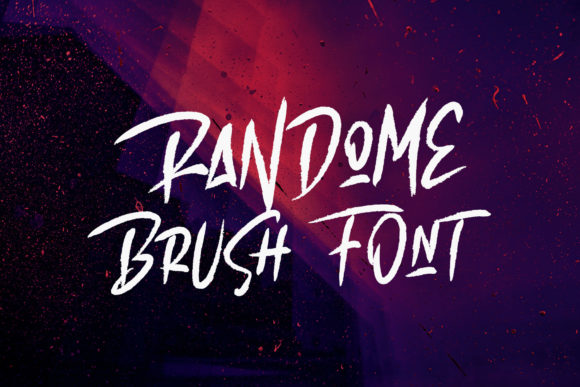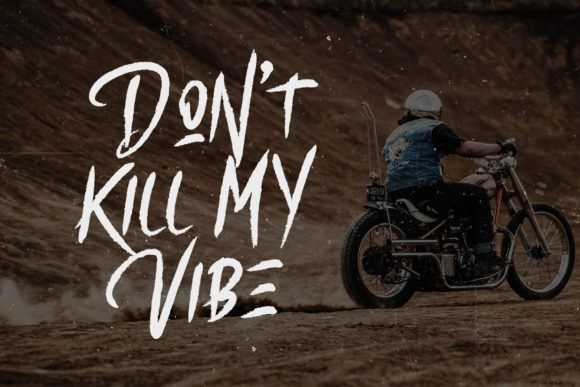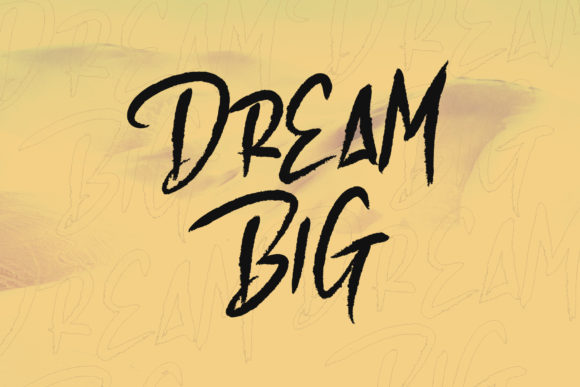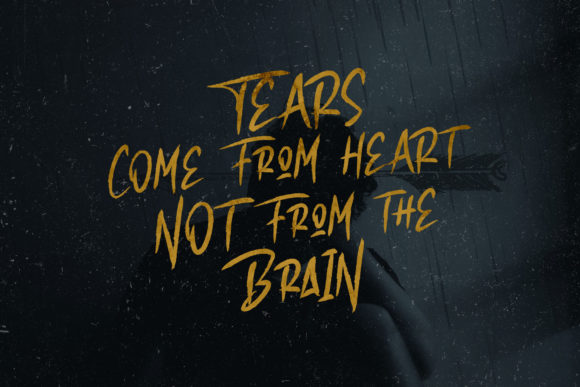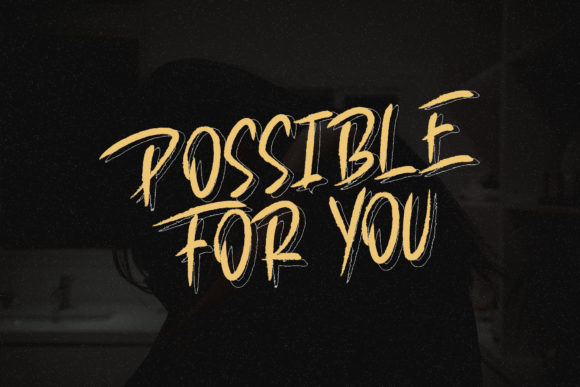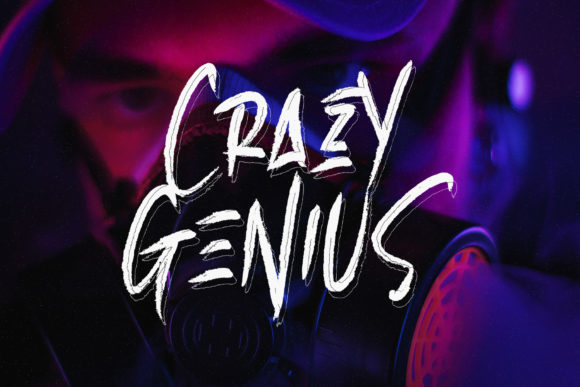
Introduction to Randome Font
Have you ever stared at a blank canvas, waiting for inspiration to strike? For designers, that moment is a familiar feeling. The blank page is a daunting challenge, but with the right tools, it can be a canvas for creativity. That’s where Randome Font comes in – a high-quality, free download that can elevate your design projects and make them truly stand out.
As a valuable design resource, Randome Font is perfect for branding, product packaging, invitations, quotes, t-shirts, labels, posters, or any logo you want to develop. With its unique brush display style, this font adds a personal touch to your designs, making them more attractive and engaging. Whether you’re working on a creative project or simply need a new font to spice up your designs, Randome Font is a must-have in your design arsenal.
Key Features of Randome Font
- High-quality design with a transparent background, perfect for use in creative projects.
- Unique, hand-drawn style that adds a personal touch to any design project.
- Perfect for use in logos, branding, and other design elements where a creative, high-quality font is required.
Honest Review: Randome Font
I recently stumbled upon Randome Font and was excited to give it a try. As a designer, I’m always on the lookout for high-quality design resources to elevate my creative projects.
- ✨ The font is incredibly versatile and can be used for a variety of projects, from logos to typography-based designs.
- ⚠️ The font selection is relatively limited, which may not be suitable for designers working on large-scale projects.
Overall, I was impressed with Randome Font’s potential, but I think it still needs some refinement to become a top-tier design resource. With a bit more development, I’m confident that it could become a go-to font for designers working on creative projects.
Use Randome Font with a transparent background to create a unique design effect.
Experiment with different font sizes and colors to enhance your creative project.
Randome Font is perfect for:
Creating eye-catching social media graphics.
Designing high-quality business cards.
Developing engaging presentations.